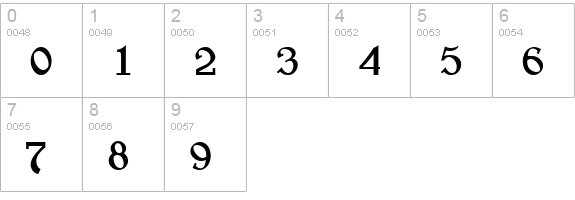
BearButteT Bold Font Details
BearButteT Bold is a strong, high-contrast variant in the BearButteT typeface family \xE2\x80\x94 well suited to headlines, attention-grabbing titles, and strong calls-to-action.
BearButteT Bold is a striking and powerful font that commands attention with its bold and robust design. Perfect for making a statement in headlines, titles, and branding materials, this font exudes strength and confidence. Its clean lines and sharp edges give it a modern and stylish appearance that is sure to stand out. This versatile font is ideal for a wide range of design projects, from posters and flyers to logos and packaging. Whether you're looking to add a touch of boldness to your designs or make a strong impact with your typography, BearButteT Bold is the perfect choice. Best of all, BearButteT Bold is available for free download at FontsMarket.com. So why wait? Add this powerful font to your collection today and take your designs to the next level.